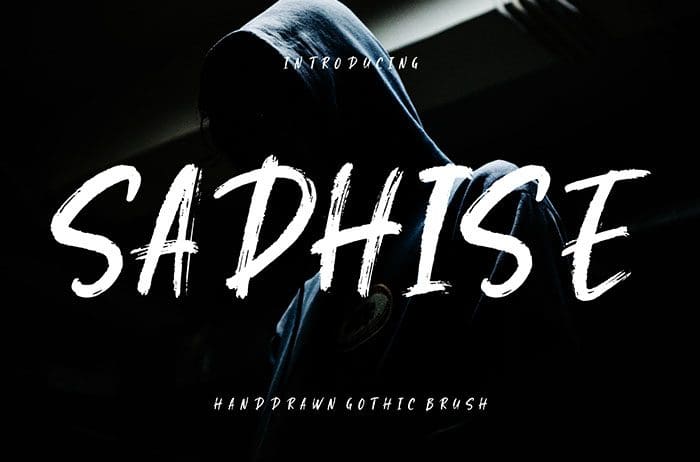
Sadhise Brush Font
Sadhise is a hand-drawn gothic Brush Font with a natural perfect scratch. Sadhise is perfect for logo, advertisements, product packaging, and many more. Thanks to Creatype Studio for sharing this font! Take a look at this portfolio for more of his stunning fonts.